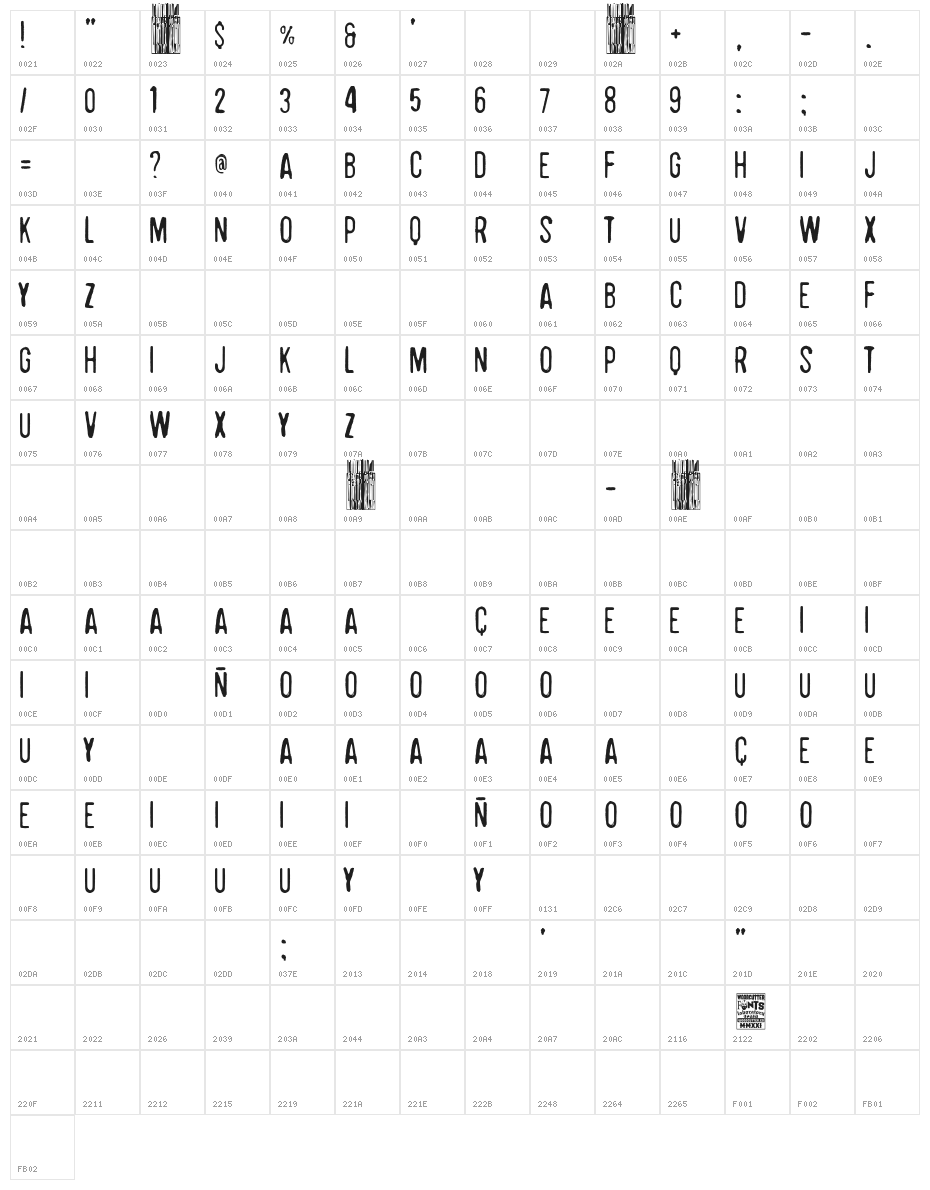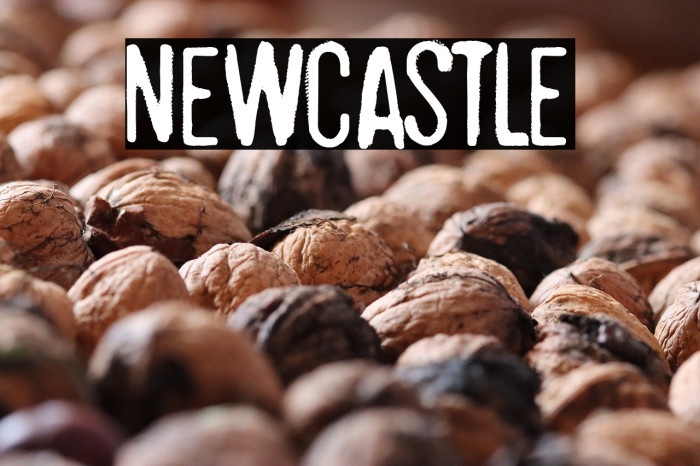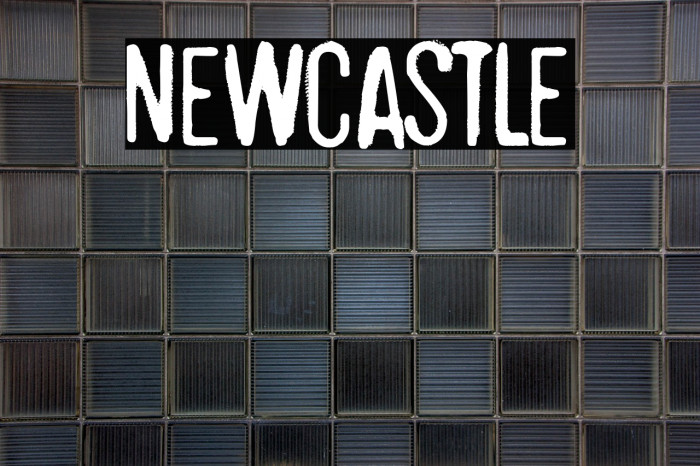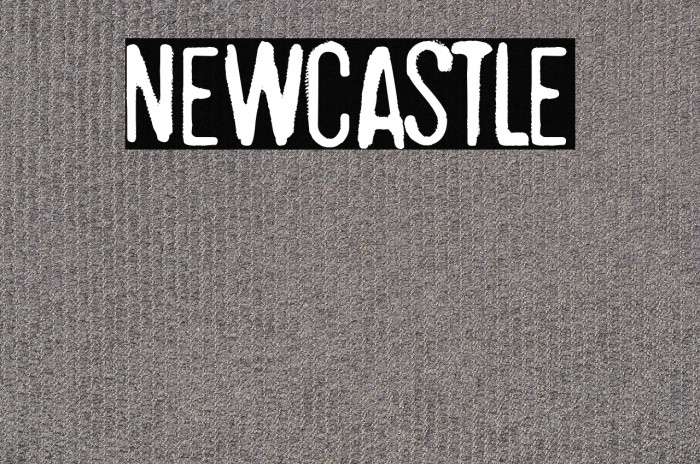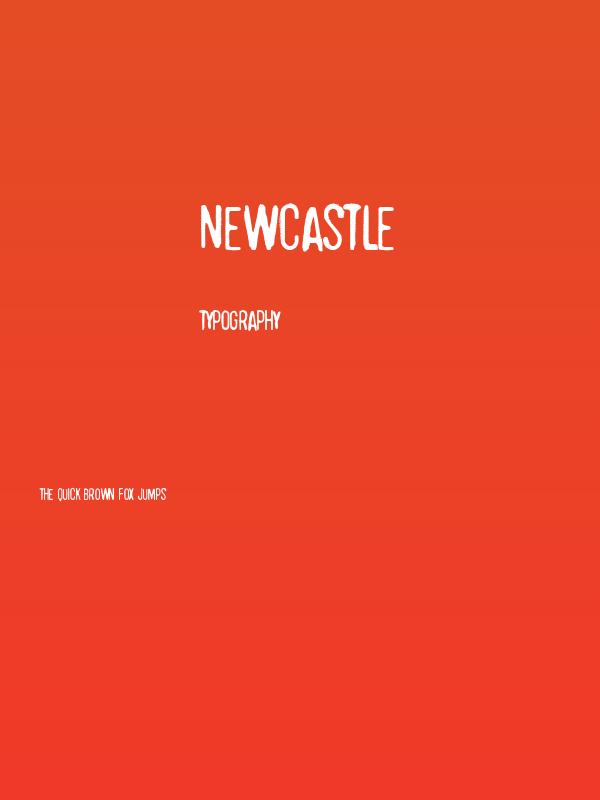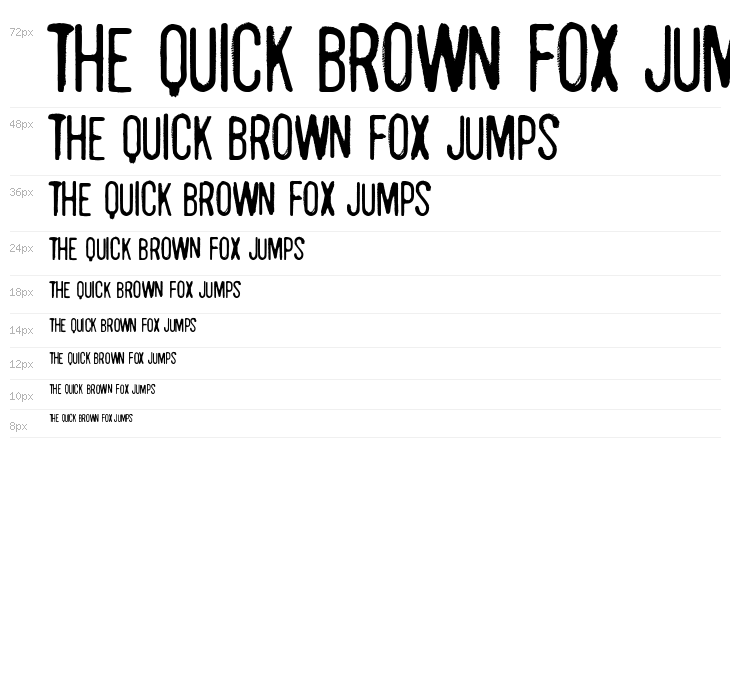
Newcastle Font
Newcastle Description
This font features a bold and rugged style, characterized by its thick strokes and slightly uneven edges, giving it a hand-drawn appearance. The uppercase letters are tall and narrow, with a consistent height across the alphabet. The lowercase letters maintain the same boldness, with a slightly more condensed form. Numbers follow the same style, ensuring uniformity throughout. Special characters are included, matching the overall aesthetic. This font exudes a vintage and rustic charm, making it ideal for projects that require a strong and impactful visual presence.